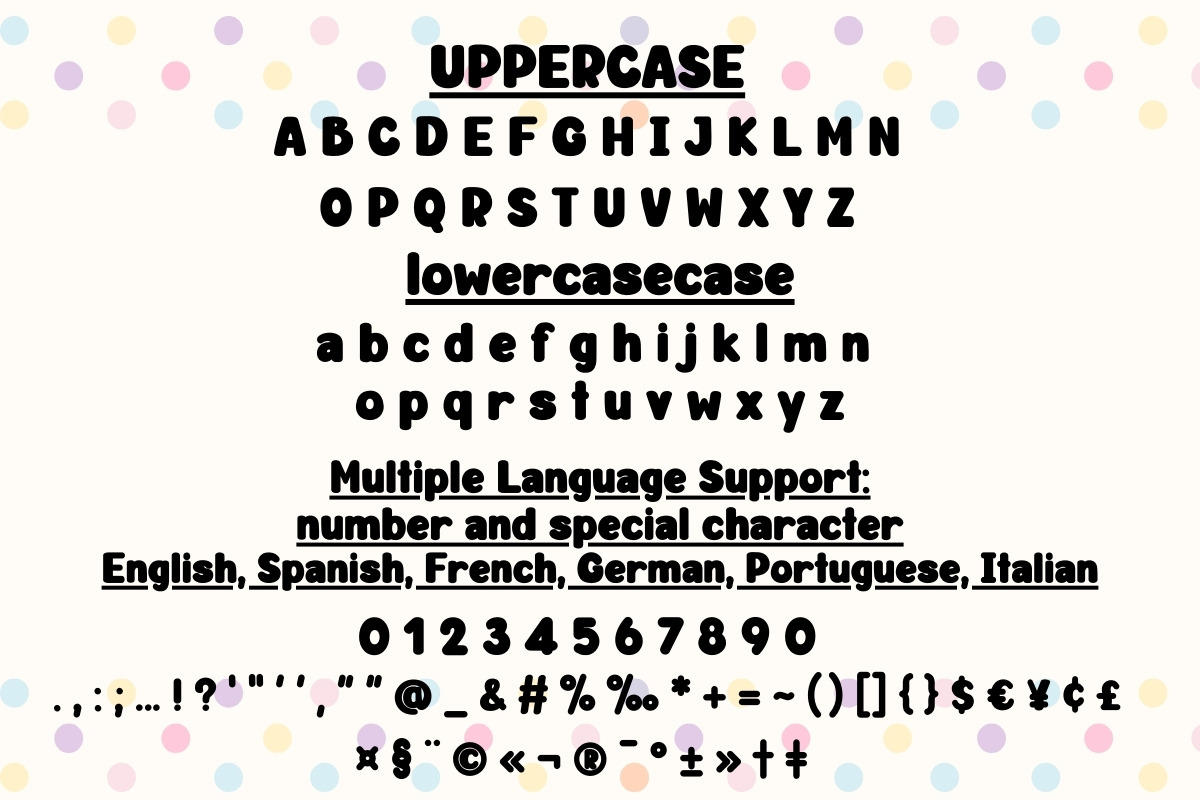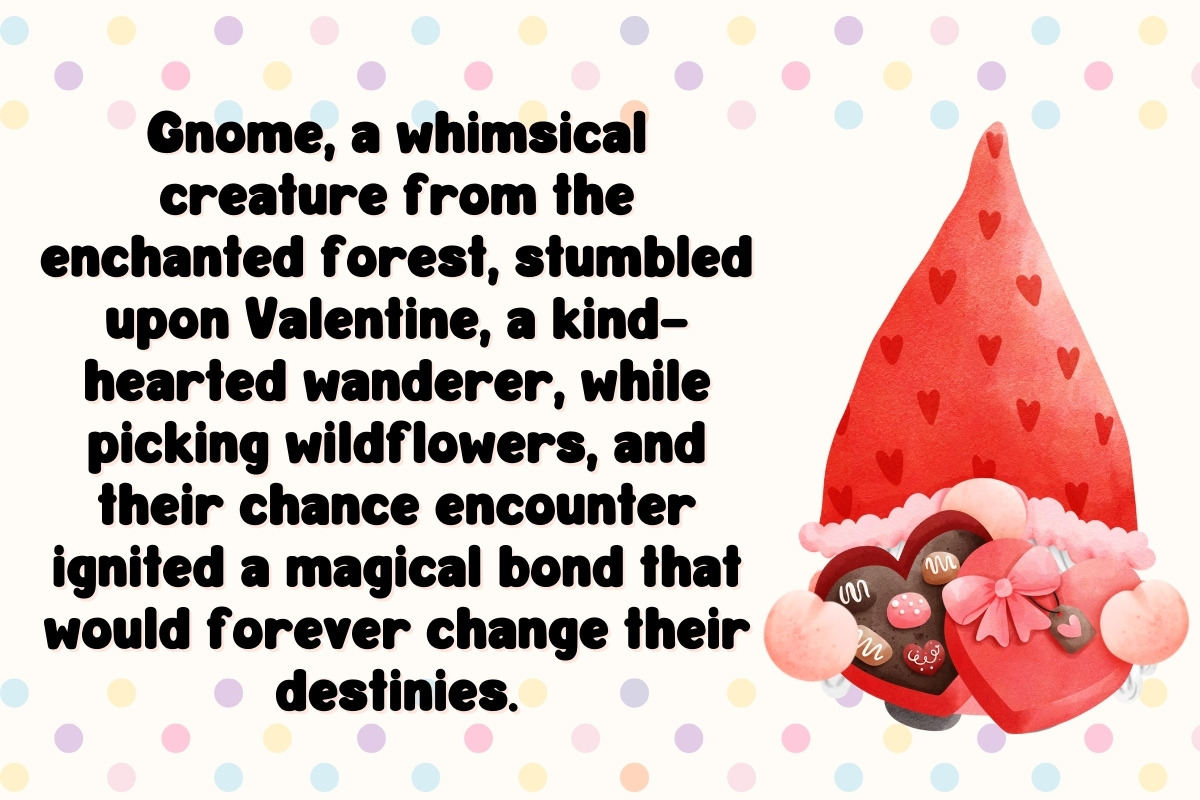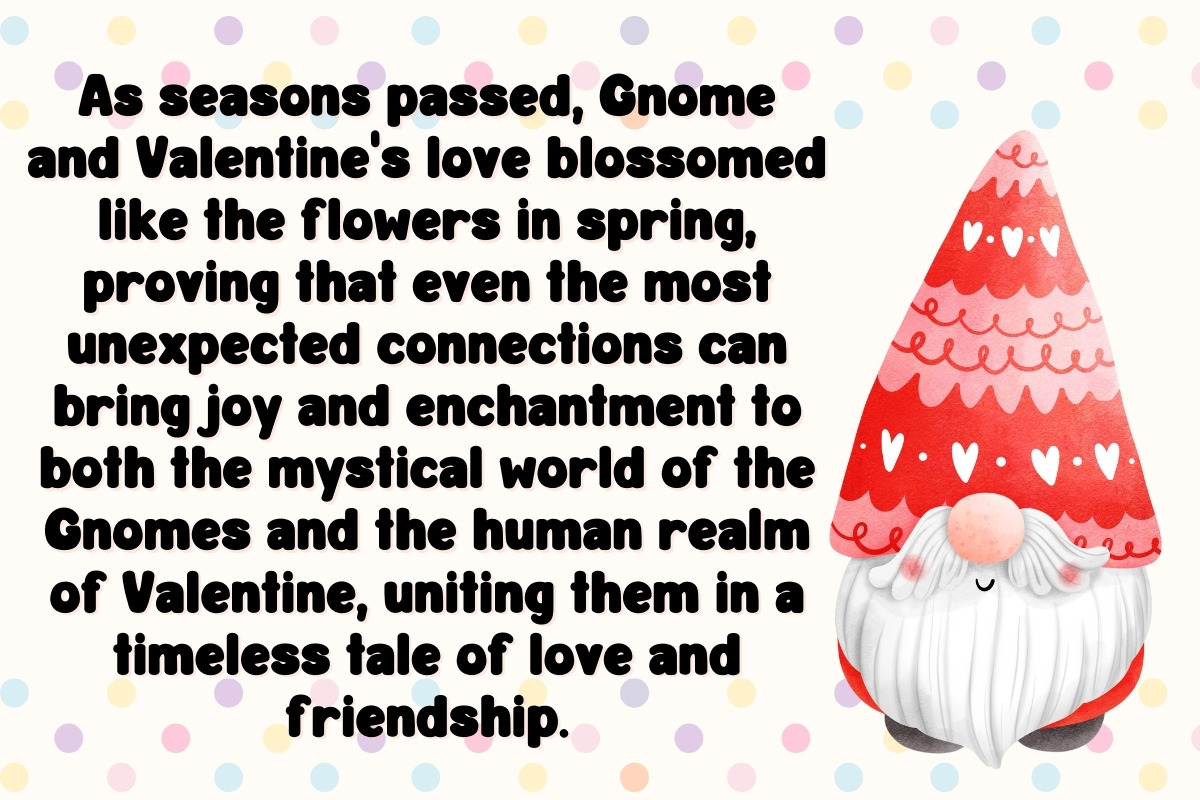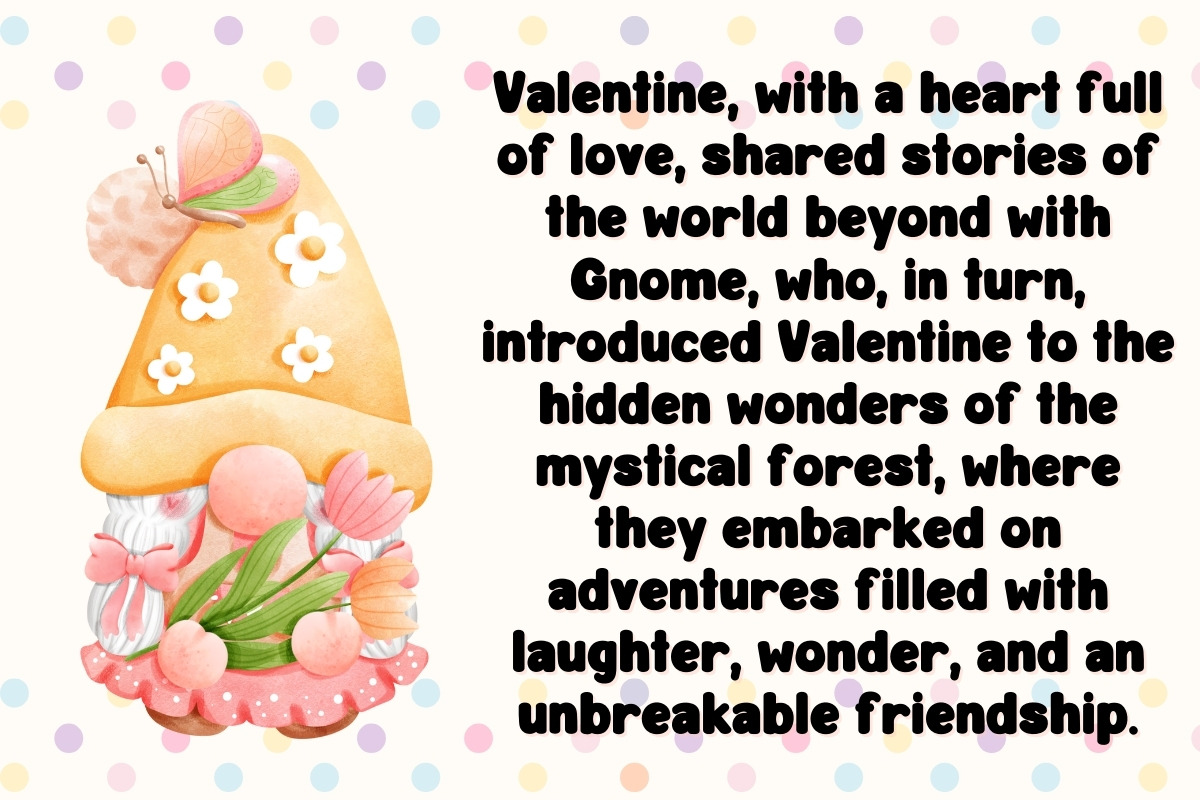
Valentine Gnome - Handwritten
"Valentine Gnome" is a charming Script Font that belongs to the world of Display Fonts and Handwritten Fonts. Its whimsical strokes and graceful curves capture the essence of a heartwarming tale. With its unique blend of elegance and playfulness, Valentine Gnome is the perfect choice to infuse your projects with a touch of enchantment and romance.